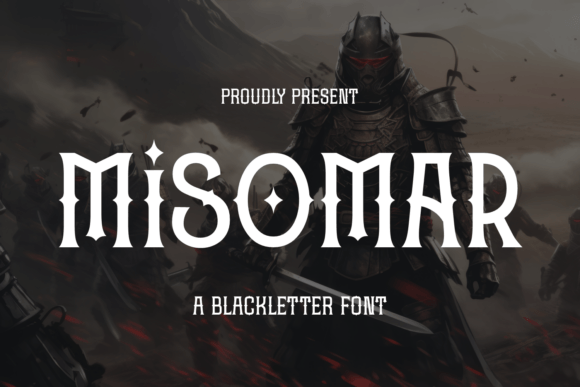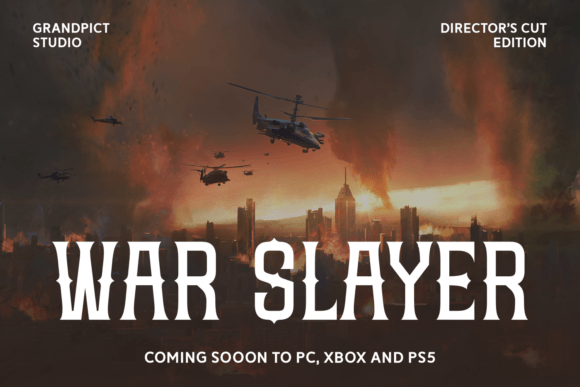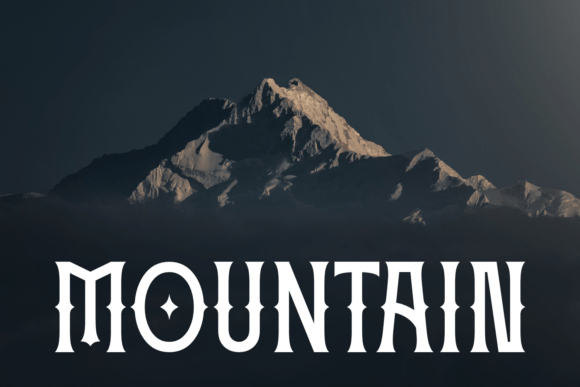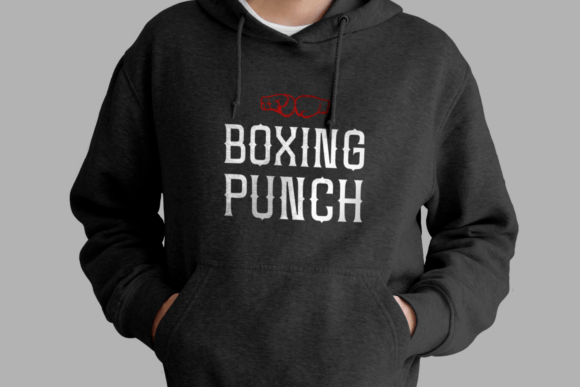
Misomar Font: Bold Blackletter Typography for Fantasy & Logo Design
About the Misomar Font
From logos to headlines, the Misomar Font is the perfect choice for making a lasting impression. Lives Misomar is a bold, elegant blackletter font with intricate, flowing letterforms that evoke a sense of medieval craftsmanship. Its sharp, pointed serifs and dramatic strokes make it ideal for creating historical, gothic, or fantasy-themed designs with a refined, traditional touch.
Misomar excels in headline applications, short text blocks for logos and branding, and on packaging where its elegance can command attention. It’s also well-suited for posters and invitations requiring a touch of historical flair. However, its intricate detail makes it less suitable for body text or UI elements where readability at smaller sizes is crucial. Long paragraphs set in Misomar would be difficult to read.
Its bold and elegant personality pairs well with clean sans-serif fonts like Helvetica or Open Sans for contrast, creating a balance between traditional and modern aesthetics. For a warmer feel, a serif like Garamond or a slightly more playful script like Playfair Display could also work effectively, softening Misomar’s strong character while maintaining visual interest.
Misomar projects a sophisticated and authoritative mood. Brands aiming for a heritage feel, luxury goods, or those in the publishing, alcohol, or historical tourism sectors would find it particularly effective.
Misomar Font Example